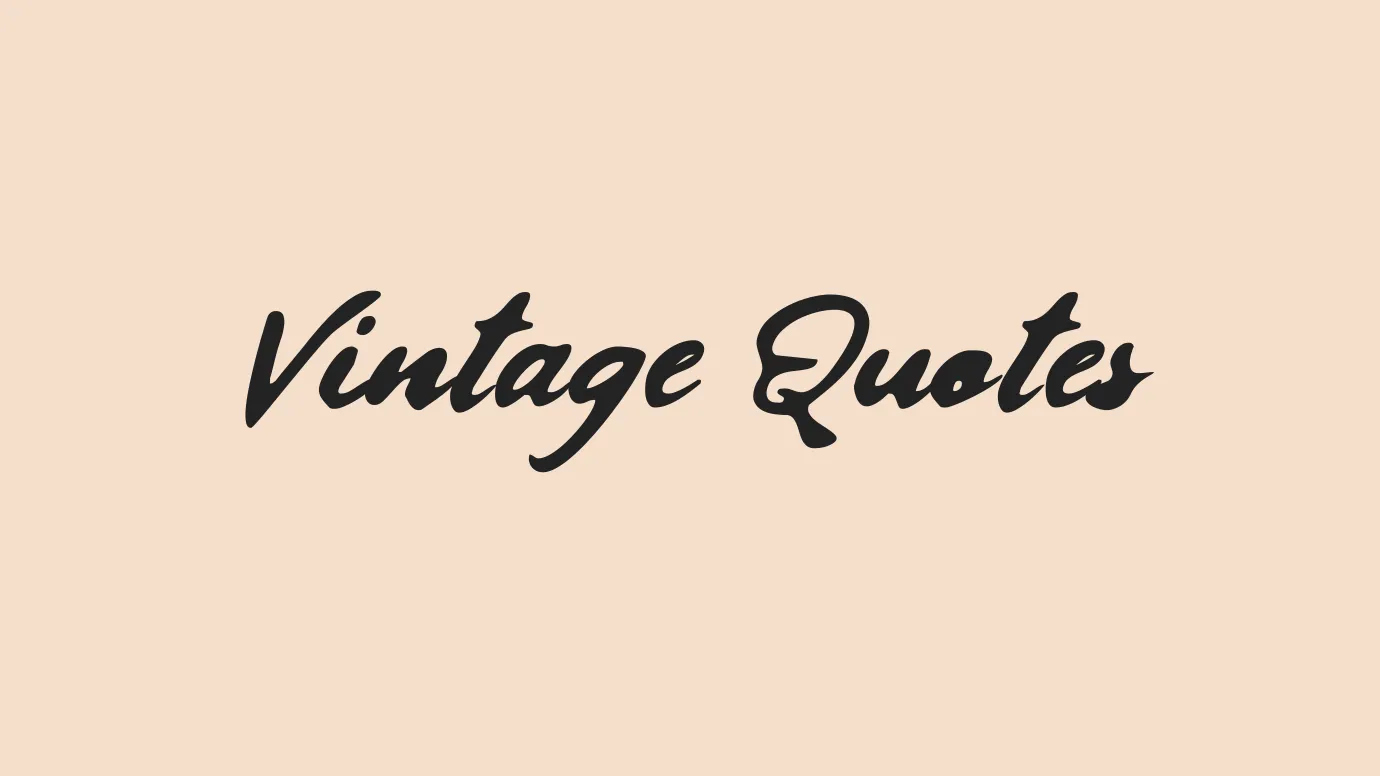
Vintage Quotes Font Family is a very amazing handwritten font. This amazing font was designed by Lettersiro Studios. The look of this font is very friendly. This amazing font was launched in 1996.
It is a handwritten font that was used in the 20th century. Its characters are inspired by the Italian calligraphers. It was launched in many international languages also.
Vintage Quotes Font